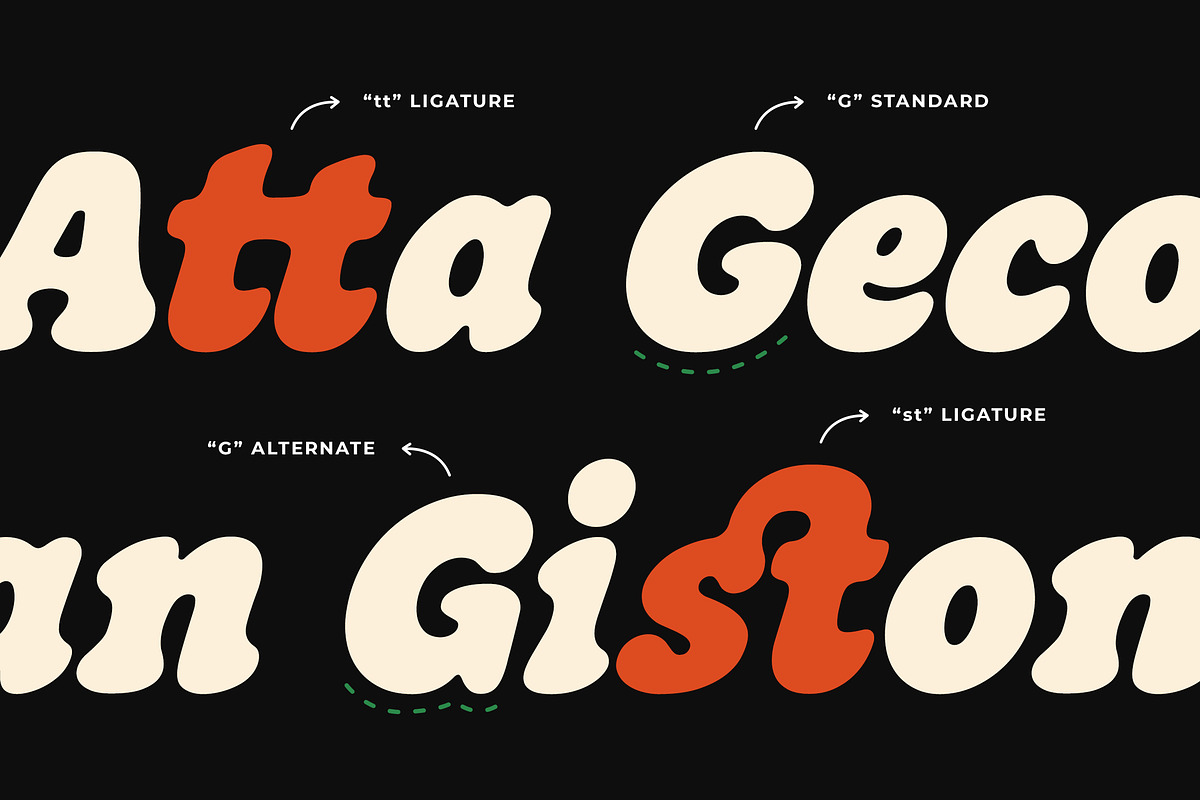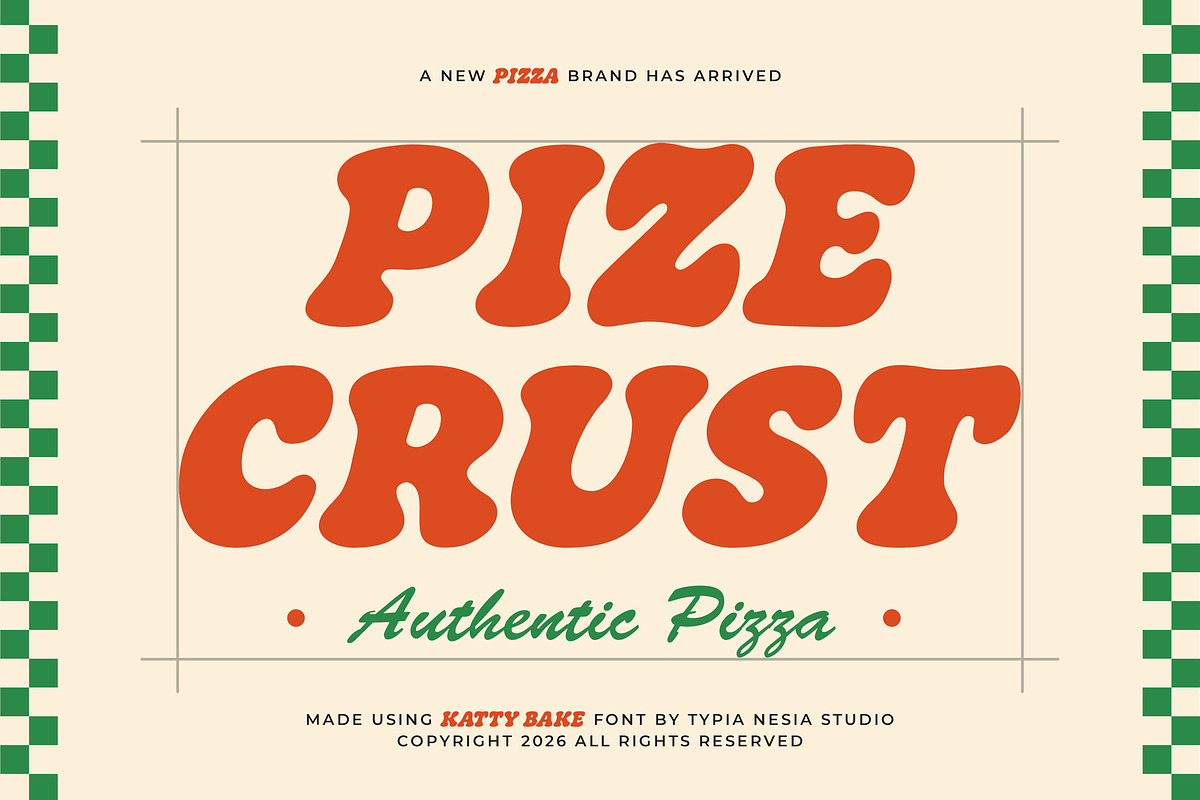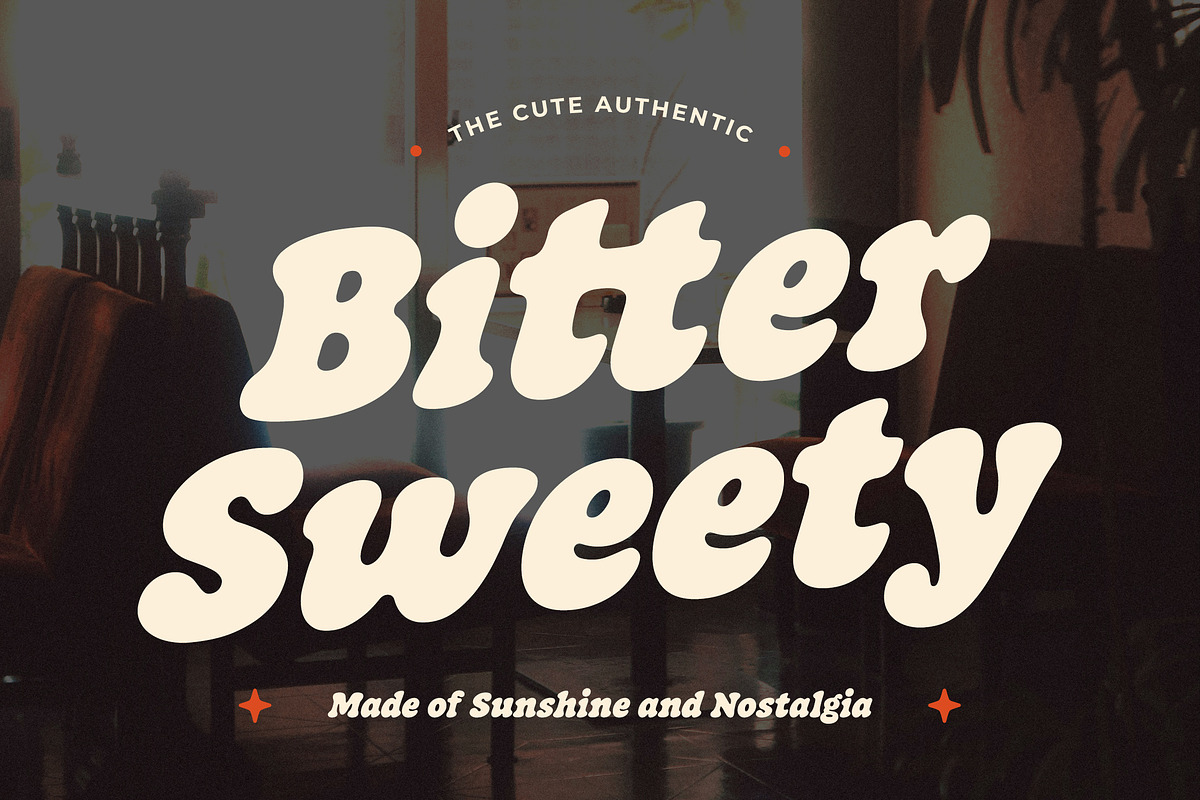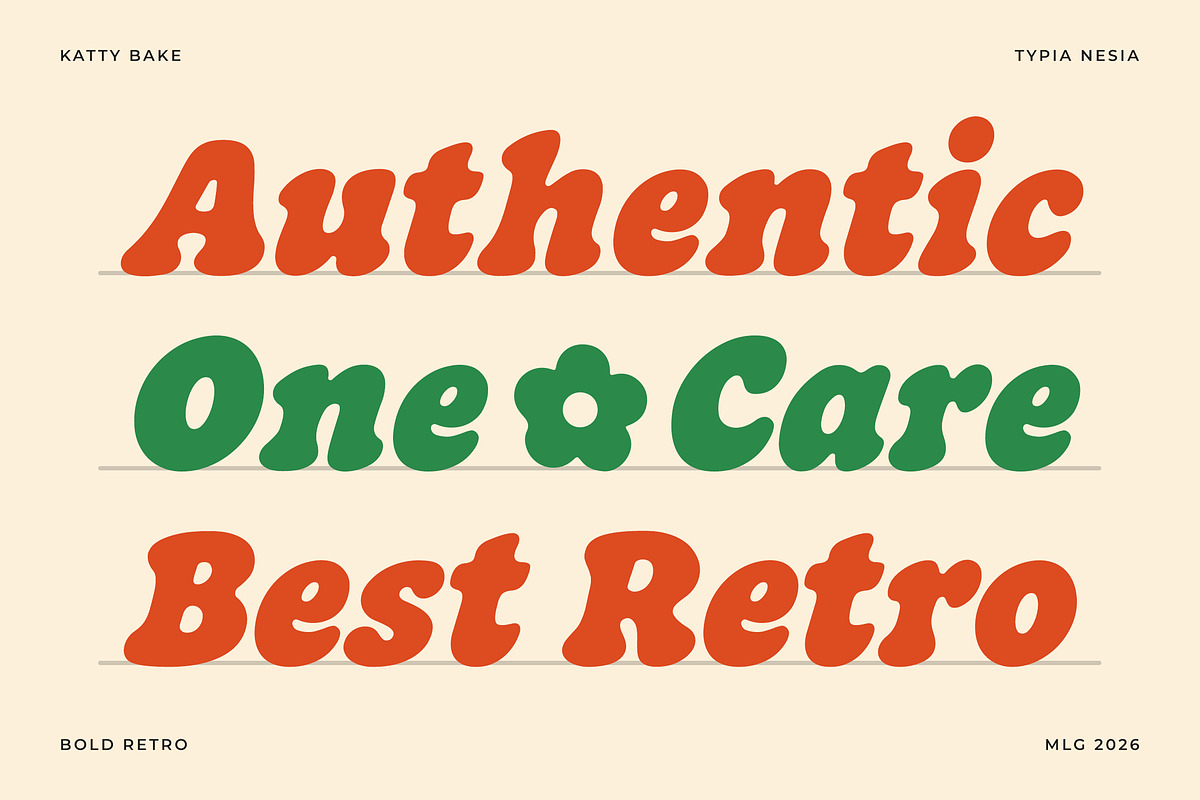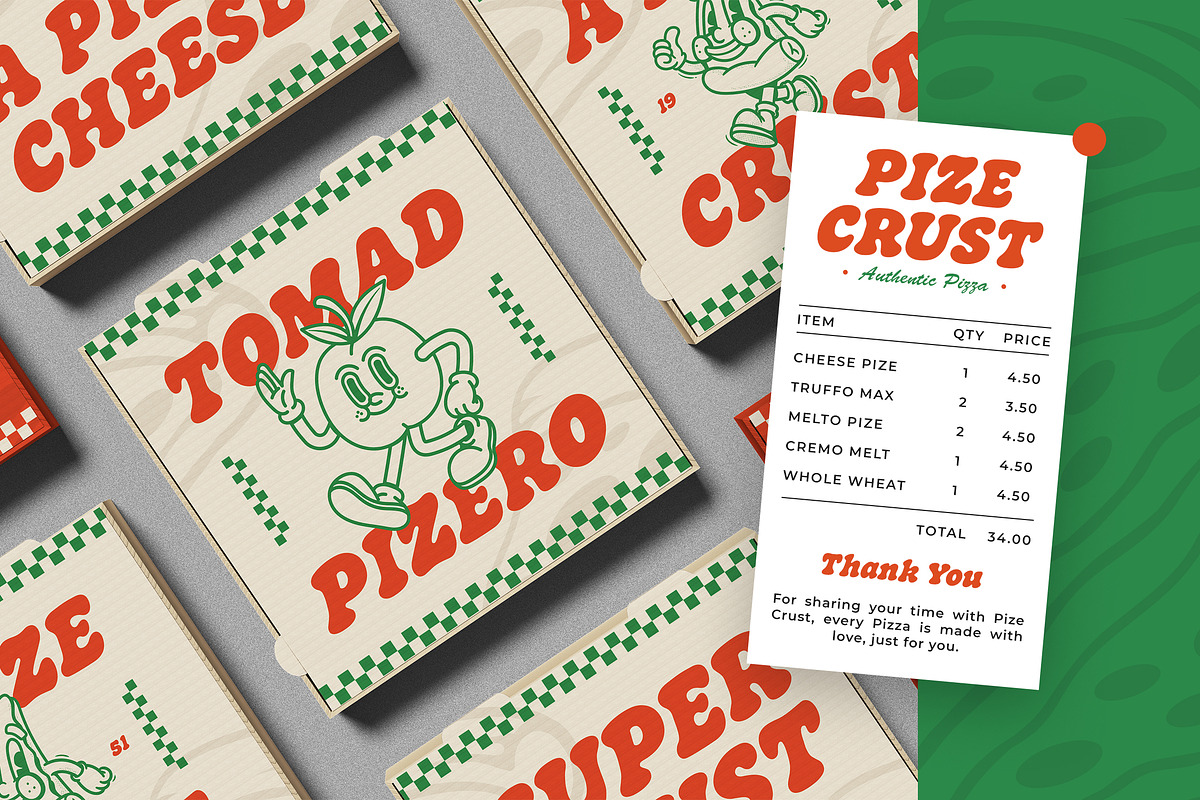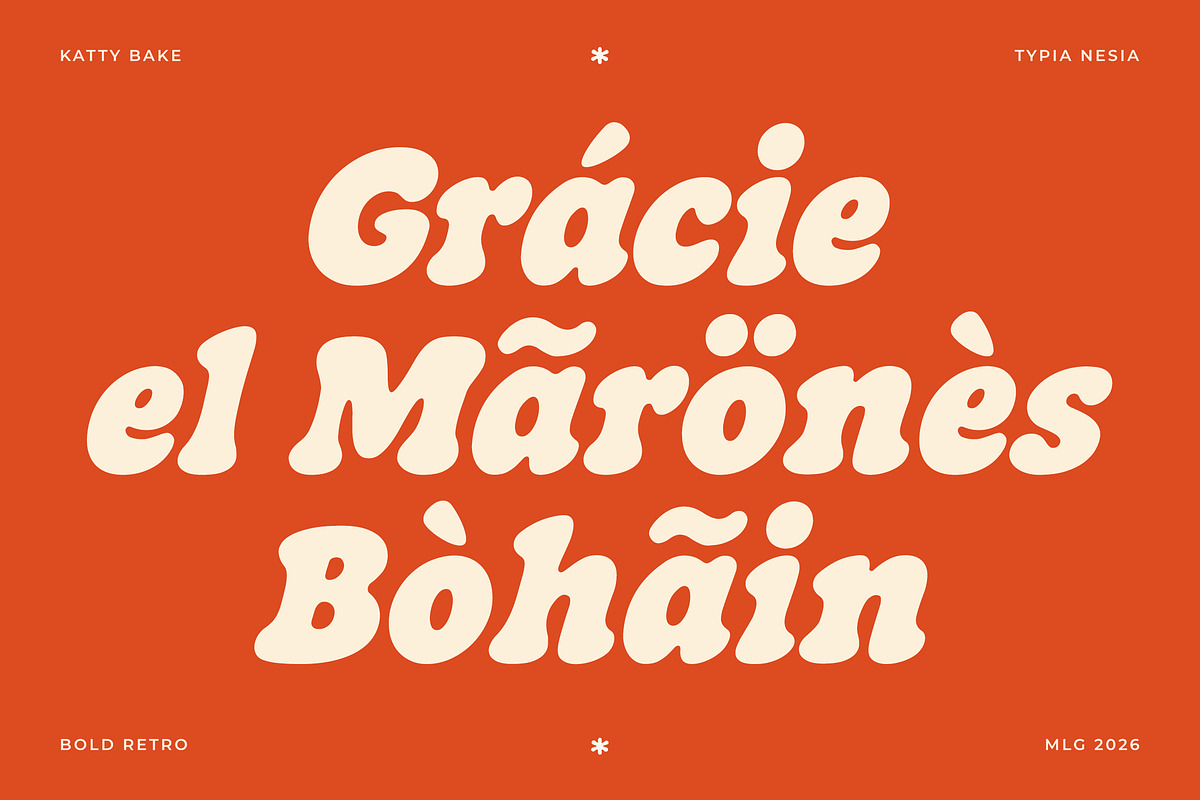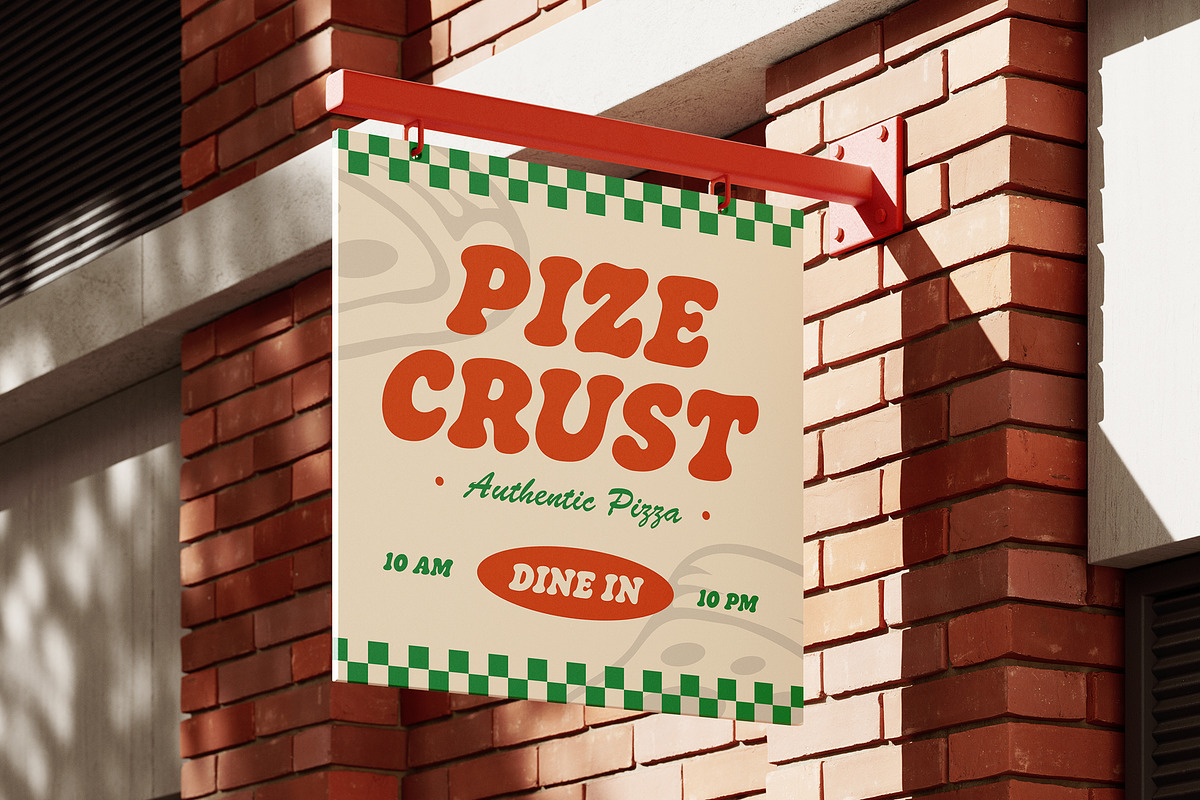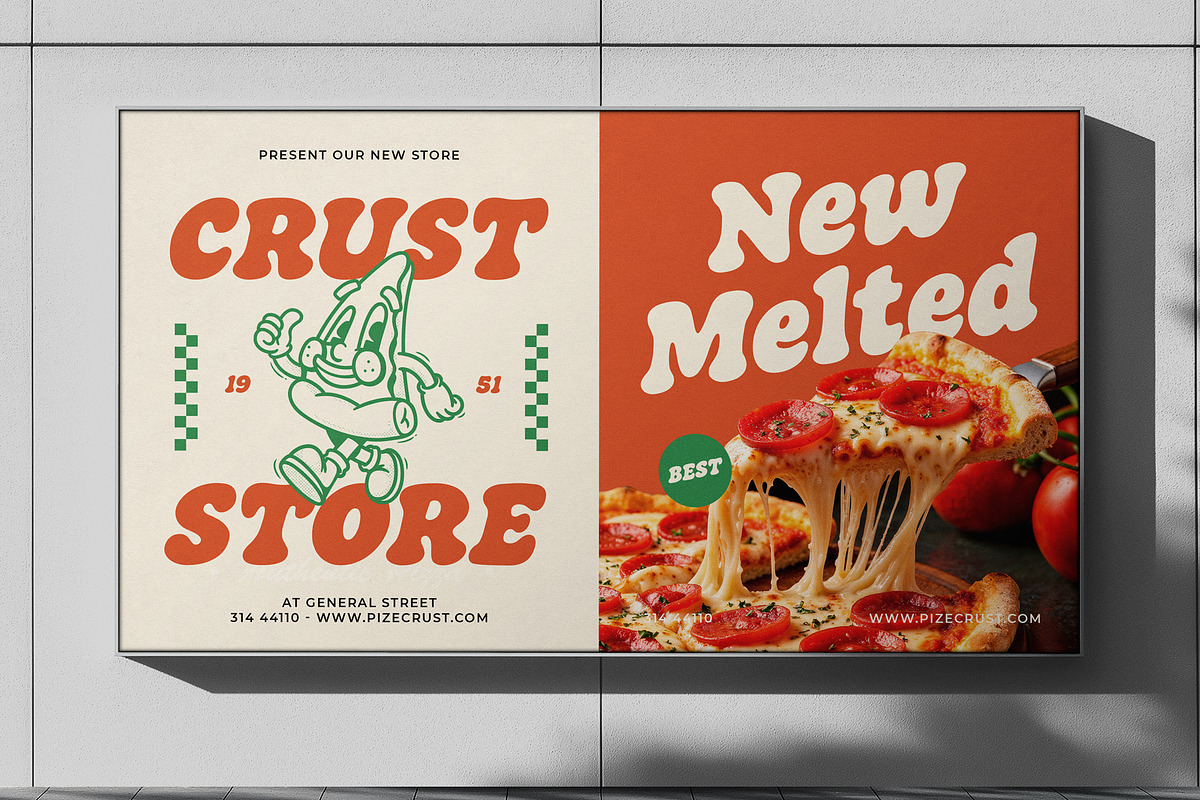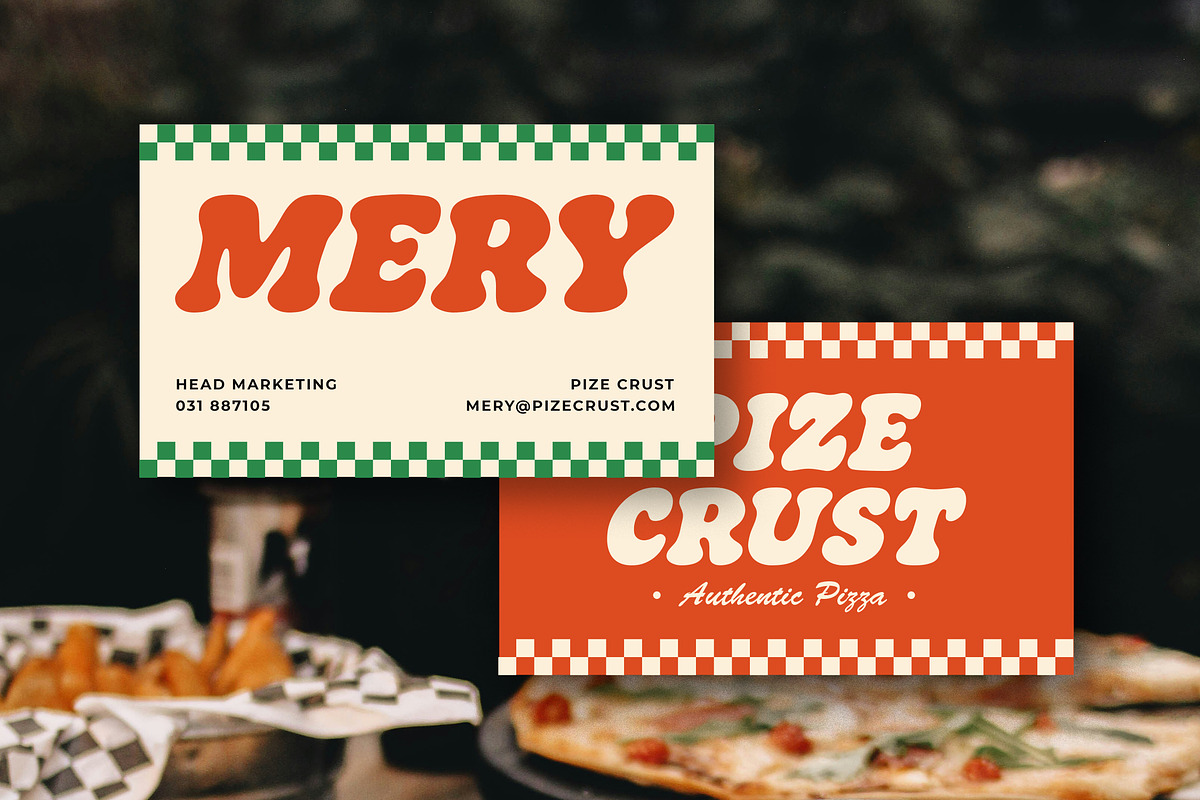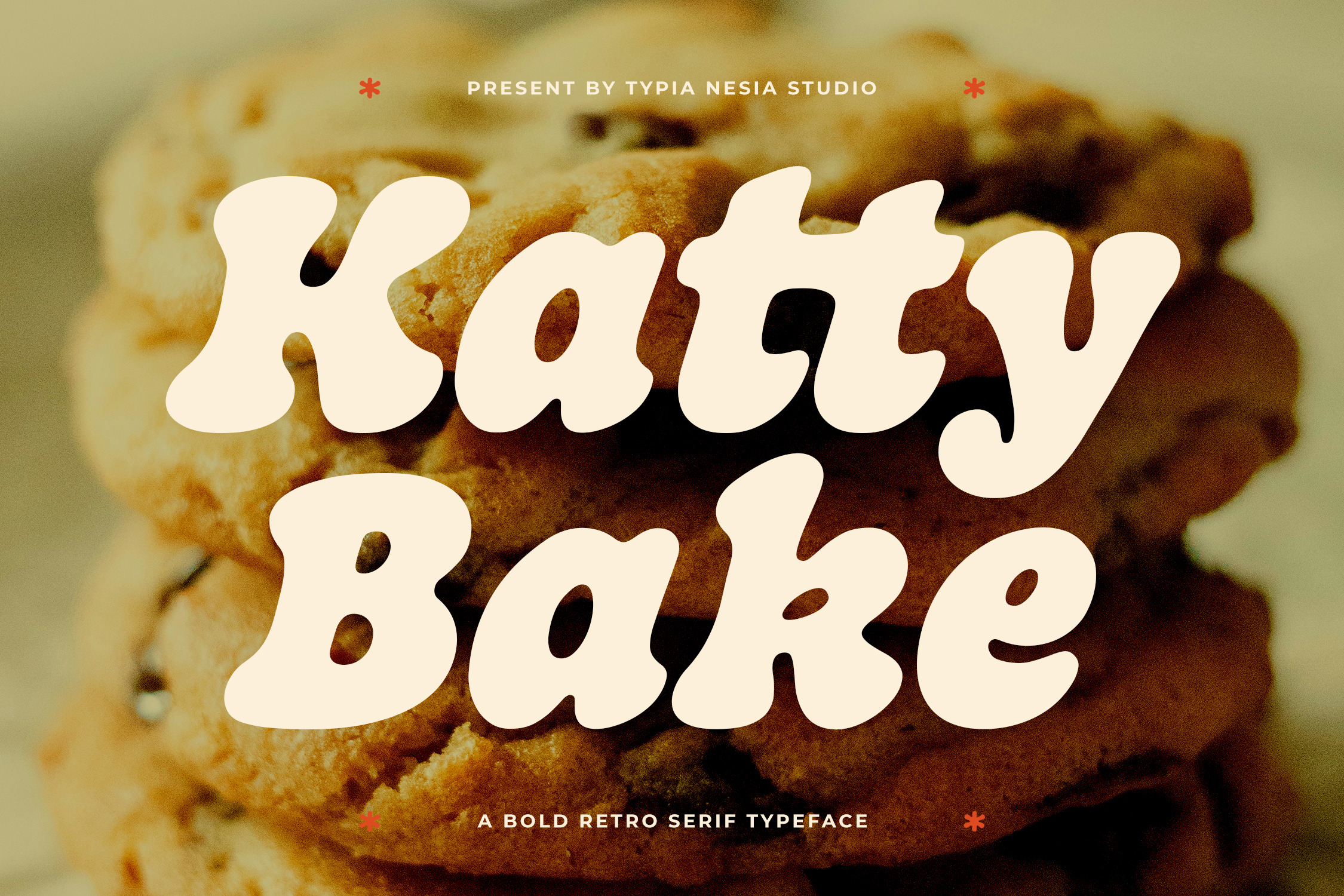
Katty Bake - Bold Retro Serif Font
Katty Bake - Bold Retro Serif Font for Bakery, Cafe & Vintage Branding
Katty Bake is a bold retro serif typeface featuring chunky letterforms, rounded edges, and a warm nostalgic personality. Designed to create inviting and memorable branding, it delivers a friendly vintage look that instantly enhances food-related and lifestyle design projects.
Perfect for bakery logos, café branding, coffee packaging, cookie labels, restaurant menus, product packaging, social media graphics, signage, posters, and handcrafted branding.
Bring warmth, sweetness, and timeless retro charm to every design with Katty Bake—the perfect display serif for brands that want to feel handcrafted, delicious, and unforgettable.